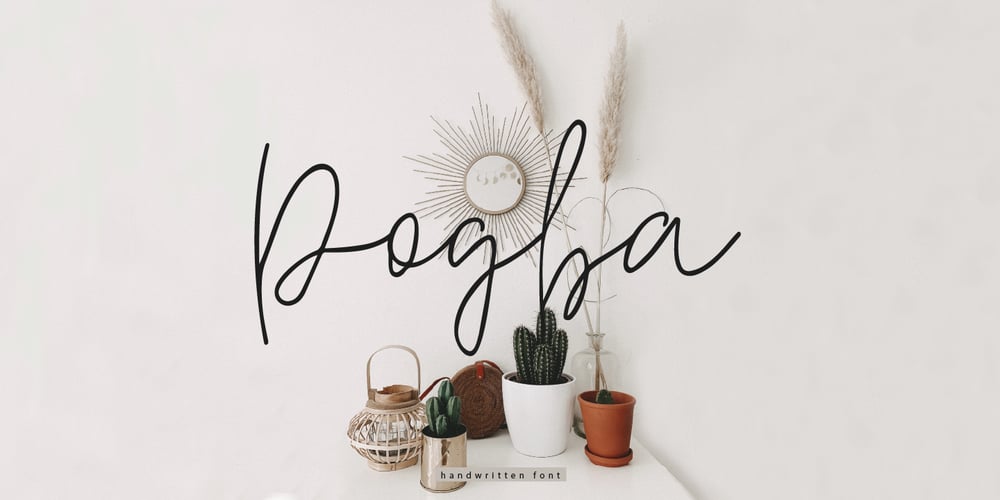
Pogba Font Family was designed by Hleb Zhyhunou and published by Mr. Typeman. Pogba contains 1 styles and family package options. Pogba is a stylish calligraphy font with an amazing and natural style. Pogba is perfect for branding & logo projects, also suitable for packaging, wedding invites and cards and so on.